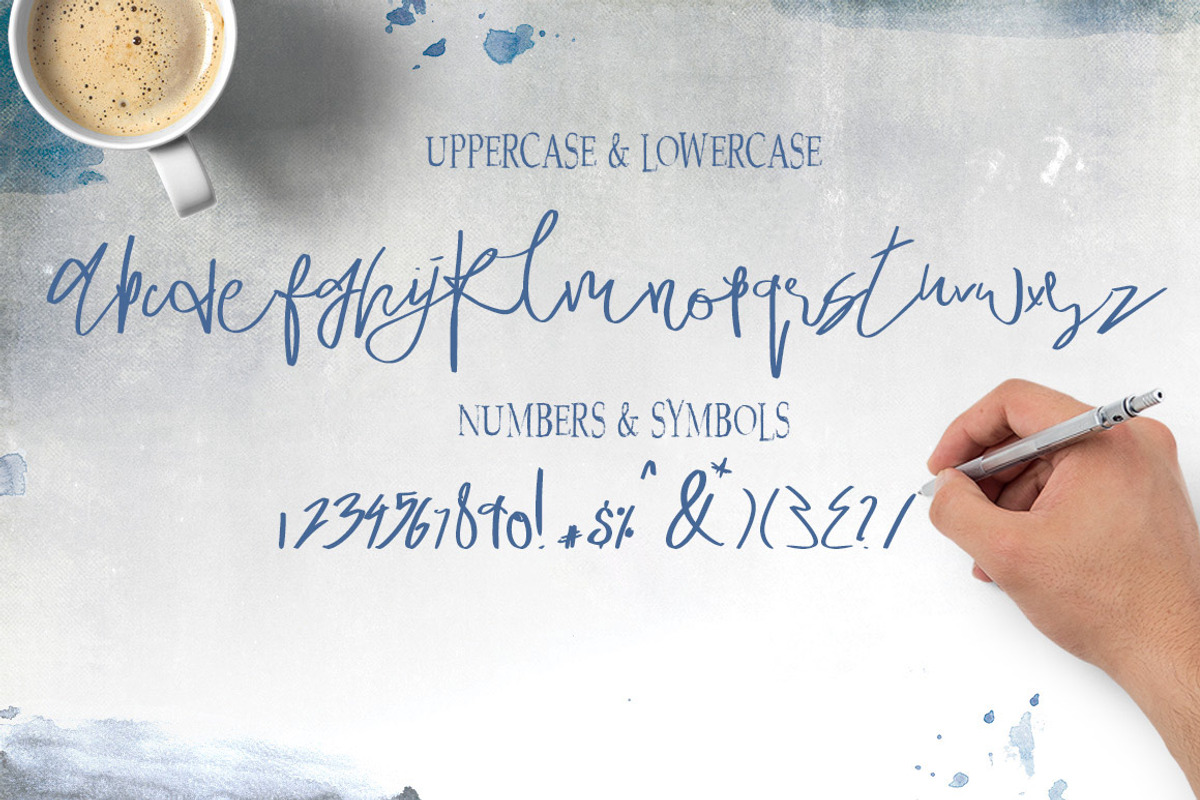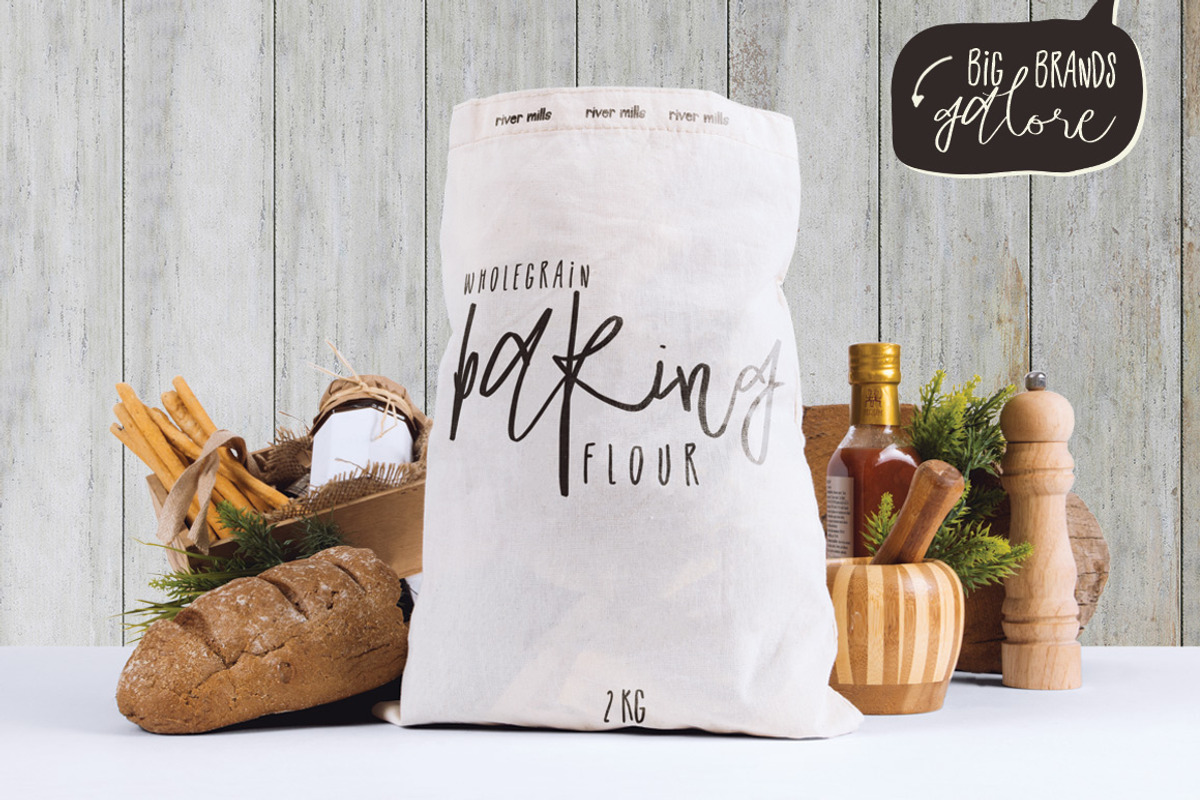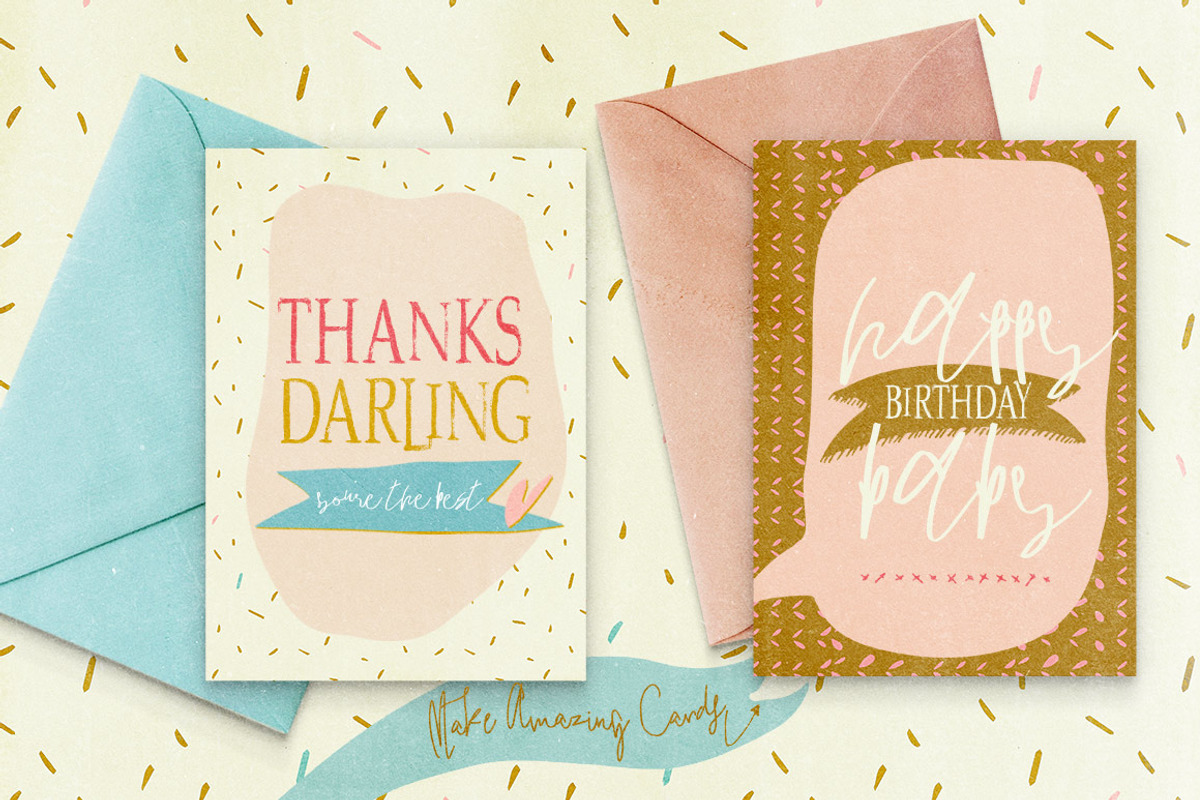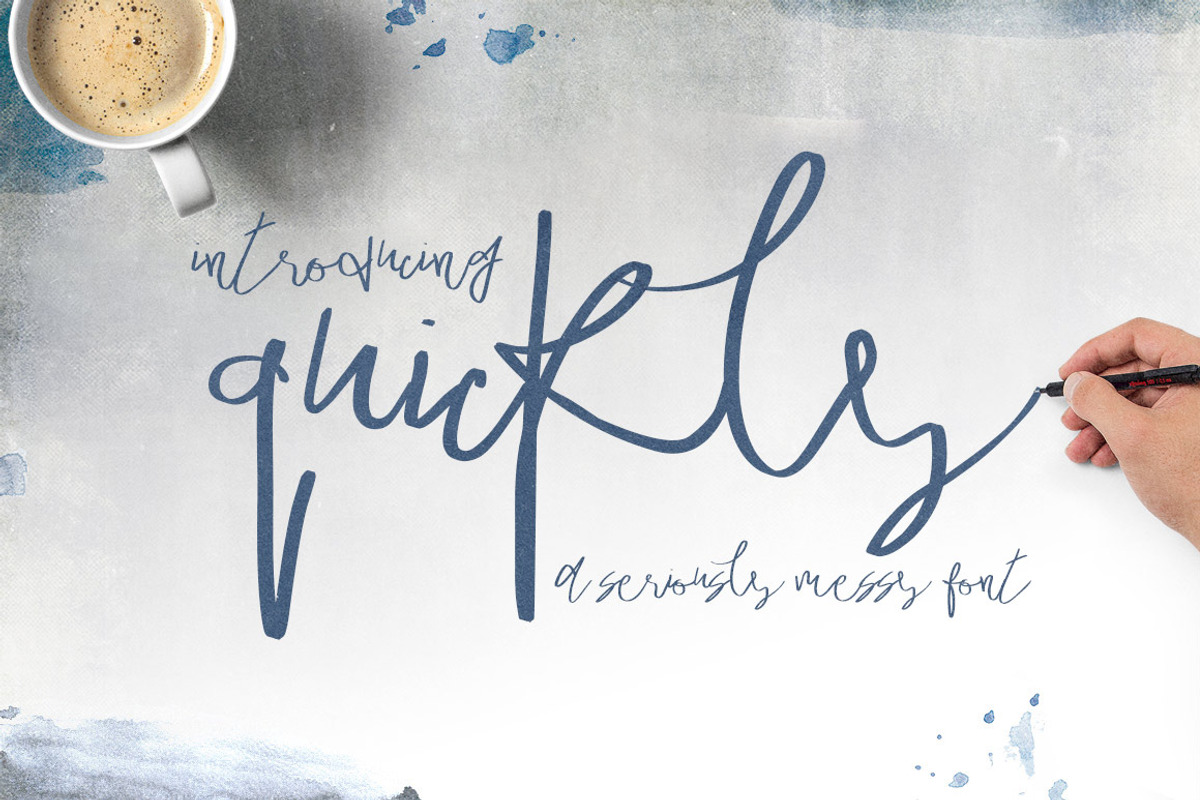
Quickly Script Font Typeface
Quickly Script Font Typeface by Creativeqube Design is a font selected for branding, posters, packaging, typography.
Quickly Script Font Typeface by Creativeqube Design fits naturally into Branding, posters, packaging, typography.